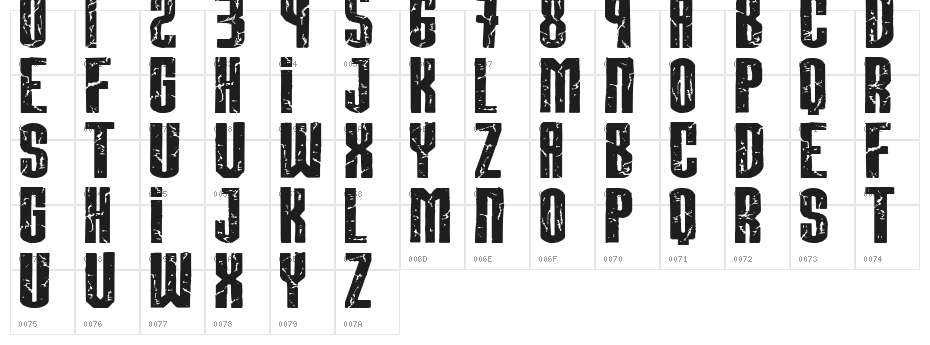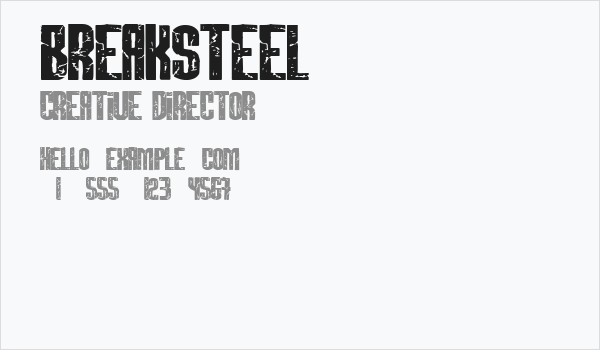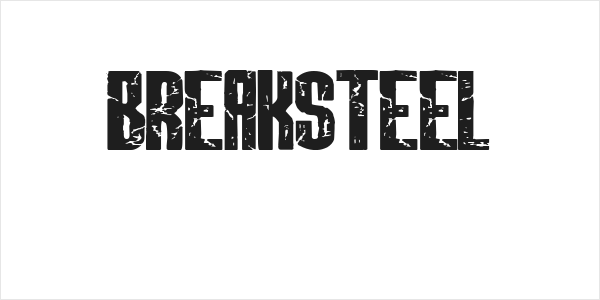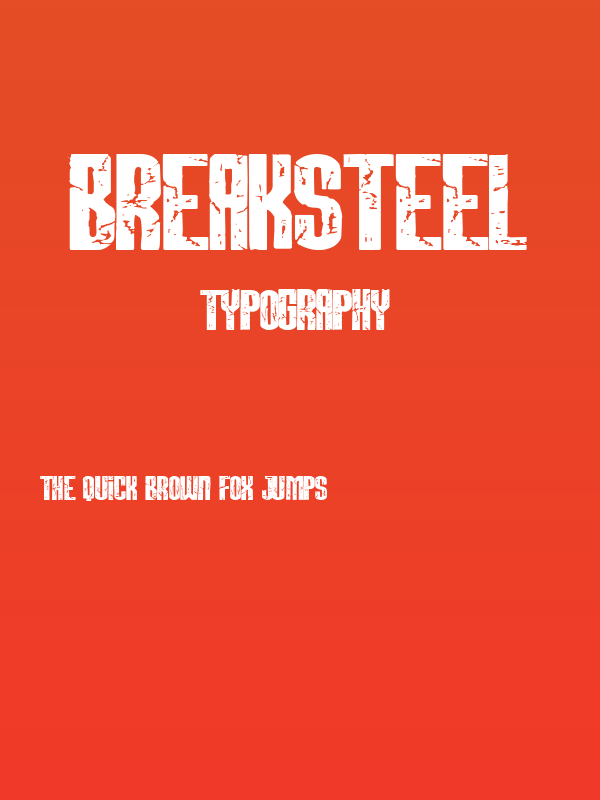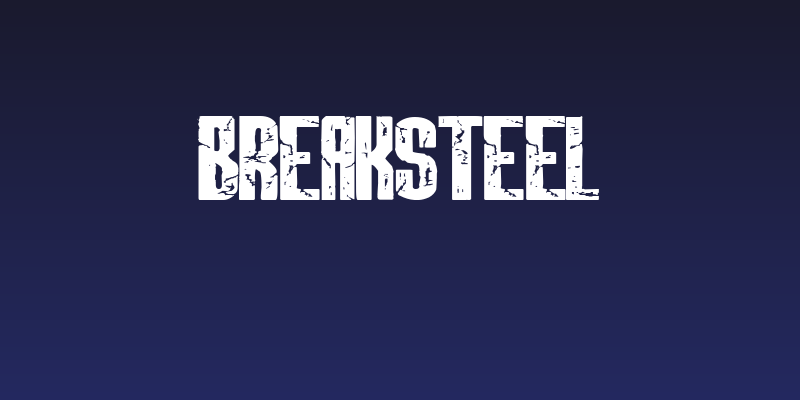
BREAKSTEEL Font
BREAKSTEEL Description
This font features a bold, distressed style with a rugged, industrial appearance. The characters are blocky and robust, with a weathered texture that gives them a worn, gritty look. The uppercase and lowercase letters maintain a consistent thickness, and the numbers follow the same design principles, ensuring uniformity across the typeface. The special characters are also designed to match the overall aesthetic, making this font suitable for projects that require a strong, impactful visual presence. Its unique style is reminiscent of urban or industrial themes, making it ideal for designs that aim to convey strength and resilience.
| Overall Style | Industrial, Rugged |
| Proposed Projects | Ideal for posters, album covers, branding for industrial products, or any design needing a strong, gritty aesthetic. |